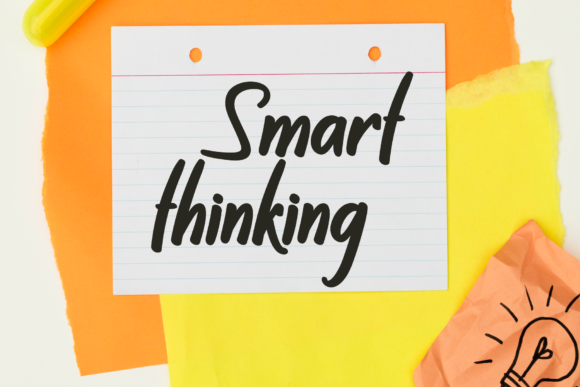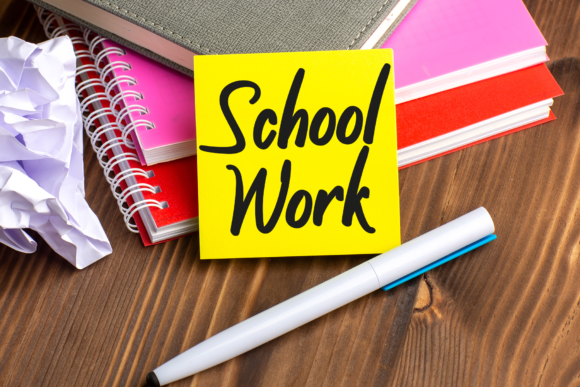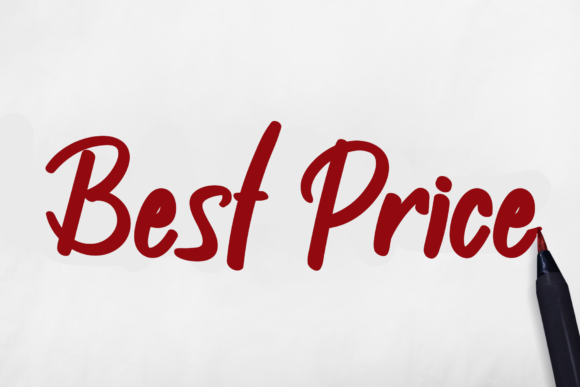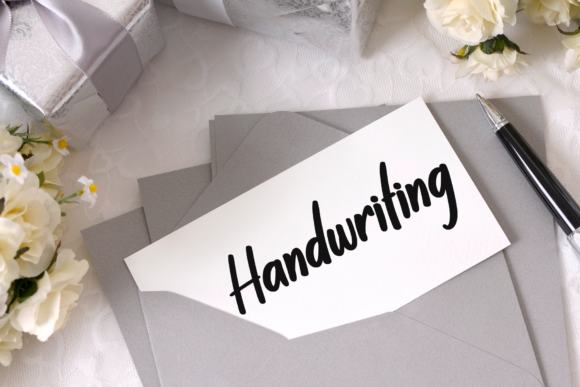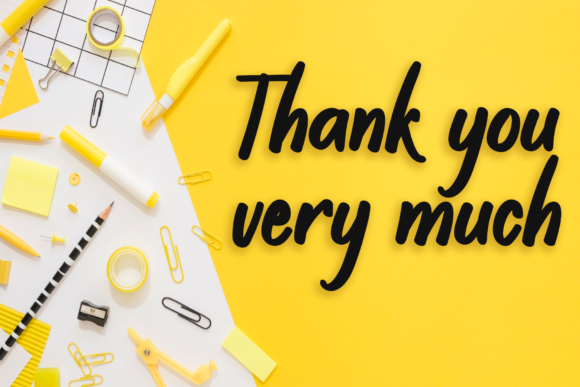
The Elusive Perfect Font: My Encounter with Hello Homework
Ah, the quest for the perfect font. We’ve all been there – stuck in the middle of a design project, pouring over font libraries, and yet, nothing seems quite right. I recall a particularly frustrating experience while working on a wedding invitation design. My client wanted something elegant, yet modern; classic, yet unique. I must have scrolled through thousands of fonts before stumbling upon Hello Homework. It was love at first sight! ✨
A First Impression: Hello Homework Font
Hello Homework is a trendy handwritten font that exudes a contemporary atmosphere and impeccable form, clearly inspired by timeless classic calligraphy. Its elegant strokes and balanced structure make it perfect for adding a touch of sophistication to any design project. Whether you’re working on wedding invitations, branding materials, or craft projects, Hello Homework promises to elevate your designs.
- ✨ Elegant and Modern: Hello Homework strikes the perfect balance between classic calligraphy and modern trends.
- ✅ Versatile: Suitable for a wide range of projects, from formal events to creative crafts.
- 💡 Inspires Creativity: The font’s unique characteristics can spark new ideas for your designs.
While Hello Homework is an excellent font, there are a few things to keep in mind:
- ⚠️ Legibility at Small Sizes: Like many handwritten fonts, it may lose legibility at very small sizes. It’s best used at larger sizes or for headlines.
- 🤔 Overuse of Swashes: While the font comes with beautiful swashes and alternates, overusing them can make your text look cluttered. Moderation is key.
- Experiment with the font’s OpenType features, such as ligatures and stylistic alternates, to add uniqueness to your text.
Exploring Alternatives: Similar Fonts to Hello Homework
If you’re looking for something similar or want to experiment with different styles, consider these alternatives:
- Lobster: A more luxurious, elegant script font perfect for formal events and high-end branding.
- Pacifico: A beautiful, modern script with a relaxed vibe, great for creative projects and personal branding.
- Great Vibes: A stylish, handwritten font with a fun and adventurous feel, ideal for creative crafts and playful designs.
- Alex Brush: A lovely, elegant script font with a classic feel, suitable for wedding invitations, cards, and formal events.
The Story Behind Hello Homework
While the true origins of Hello Homework might be shrouded in mystery, it’s clear that its designer was inspired by the elegance of classic calligraphy and the freedom of modern handwriting. The result is a font that feels both timeless and contemporary, perfect for designers looking to add a touch of sophistication to their work.
Q: Is Hello Homework suitable for body text?
A: While Hello Homework is beautiful, it’s primarily designed for headlines and short texts. For body text, consider a more readable font.
Q: Does Hello Homework include OpenType features?
A: Yes, Hello Homework comes with a range of OpenType features, including ligatures, stylistic alternates, and swashes, allowing for highly customizable text.
Q: Is Hello Homework available in different weights or styles?
A: The availability of different weights or styles depends on the specific version of Hello Homework. It’s best to check the font’s documentation or contact the designer for more information.